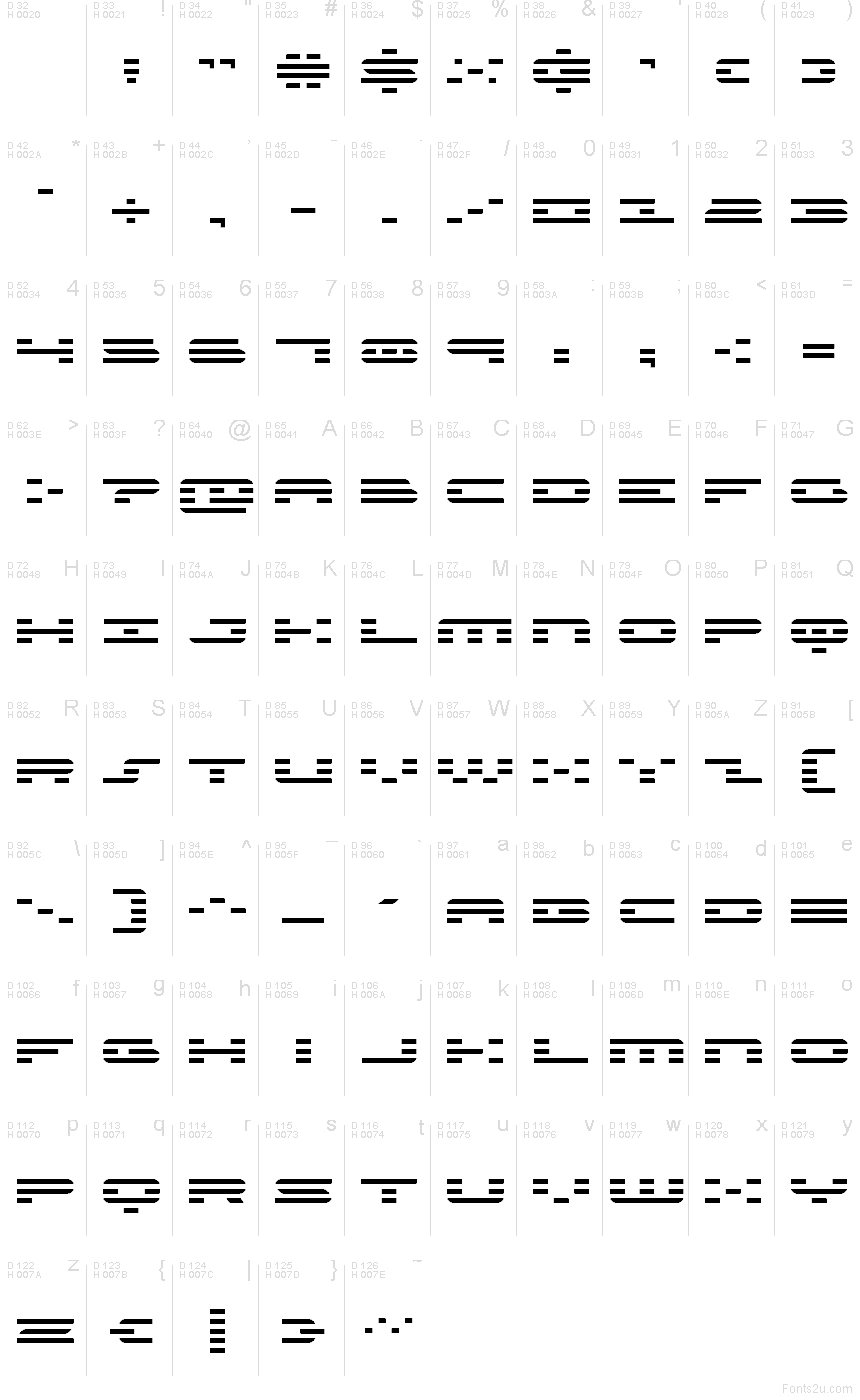
Nova Terra Expanded
Nova Terra Expanded font by Iconian Fonts is a free futuristic display typeface that pushes the Nova Terra family into bold, panoramic territory. Its ultra-wide stance, sharp corners, and sliced horizontal cuts give each word a streamlined, almost spacecraft-like presence, as if the letters are racing across the screen. Thick, even strokes and tight internal spacing create a solid, mechanical rhythm that reads cleanly even when the forms feel highly engineered and stylized.
Using Nova Terra Expanded, headlines instantly lock into a strong sci-fi and tech aesthetic that works beautifully for game logos, esports teams, sci-fi posters, streaming overlays, tech event branding, and movie title cards. This free font shines at large sizes where its segmented lines and extended proportions can breathe. Pair it with a simple geometric sans for body copy, keeping that secondary text smaller and lighter to let Nova Terra Expanded carry the visual weight.